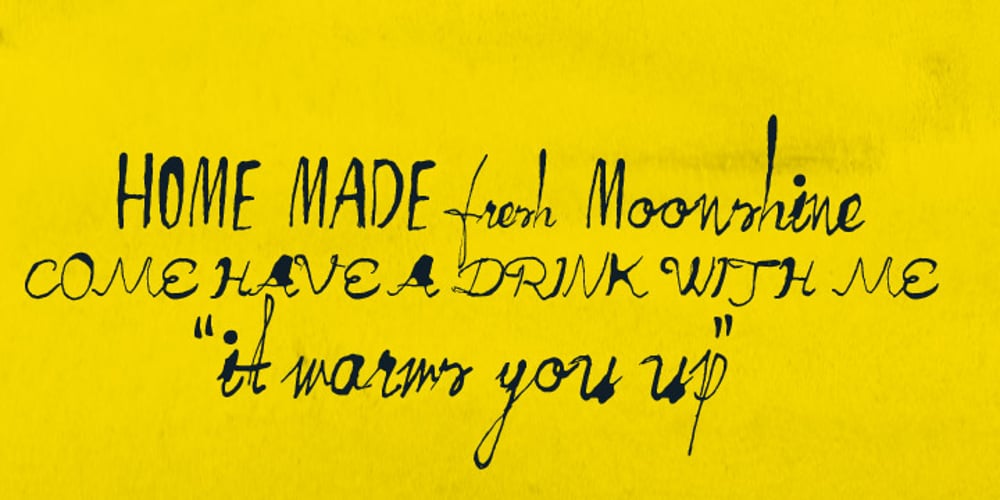
FT Moonshine Script Font Family was designed by Emil Karl Bertell and published by Fenotype. FT Moonshine Script contains 1 styles and family package options. An inky script font written by a madman from the cabin deep in the forest. Moonshine Script has a regular set of uppercase and lowercase script letters but also condensed capital letters that you can access by switching SmallCaps on and writing with CAPS.